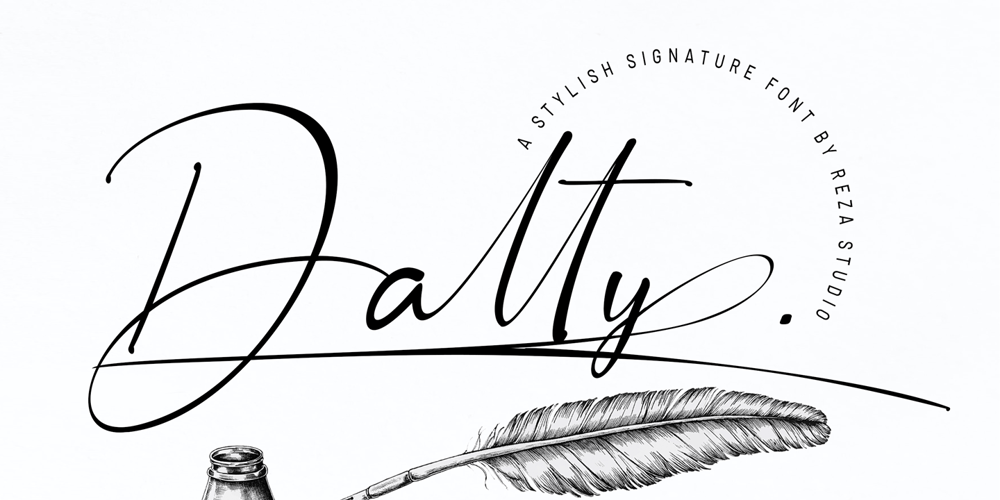
Dalty. Font Family was designed by Reza Mukhtazar and published by Rezastudio. Dalty. contains 3 styles and family package options. Introducing Dalty. is a stylish Signature font with a contemporary and sophisticated accent. Perfect for logo/branding projects, large header text, and product packaging.Dalty. Style Features : Ligatures Alternative Swash Multilanguange We really hope you enjoy and are interested in our offer. We will be happy to answer your questions. Alternatively, you can send me a message and you can immediately start your service ~Reza Studio~